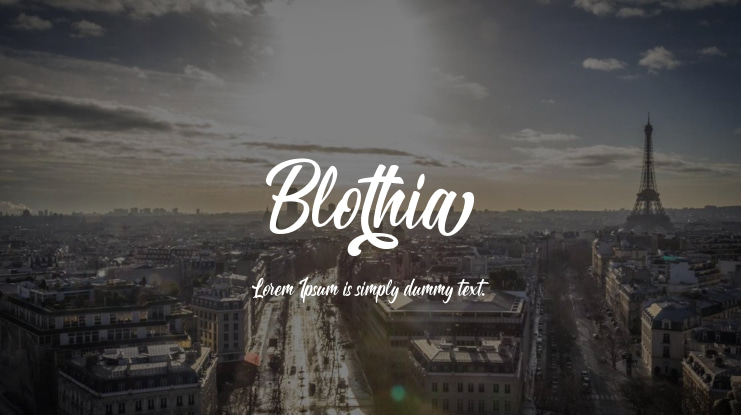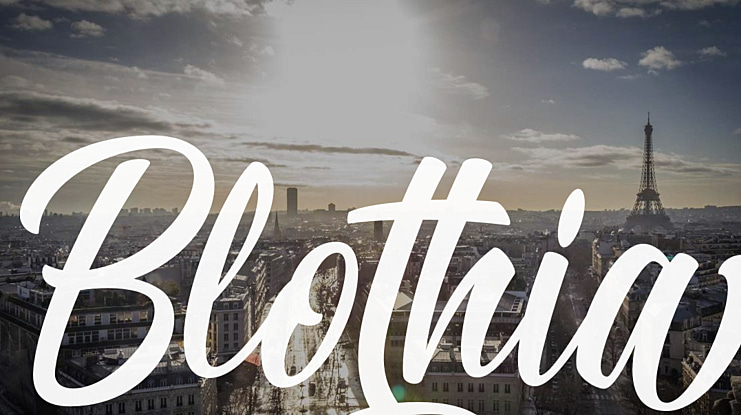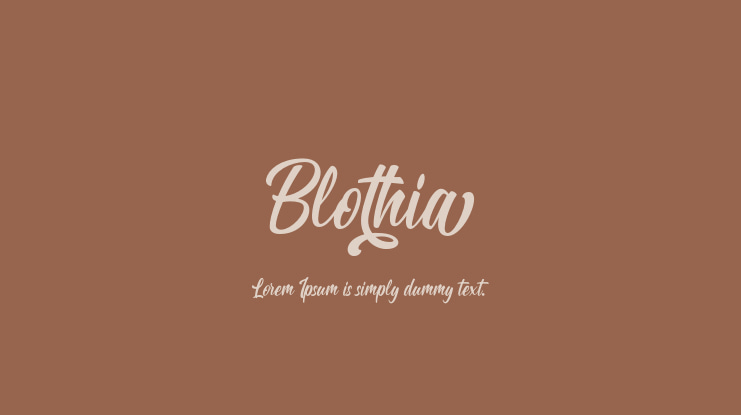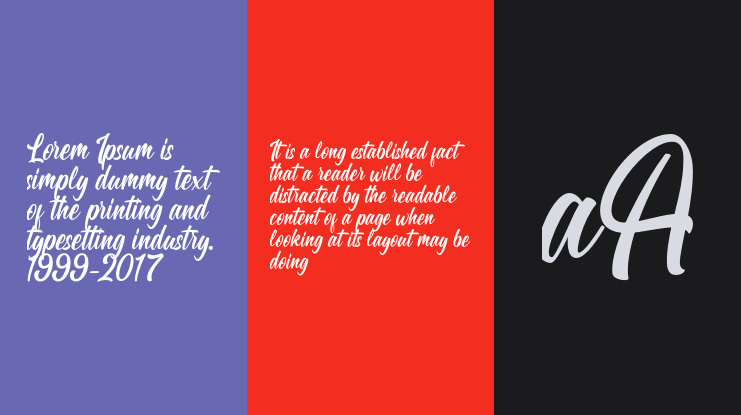
Blothia Font
Blothia is a brush script font that exudes a vibrant and lively vibe. Its versatility makes it suitable for a wide range of applications, including titles, signatures, logos, T-shirt designs, letterheads, signs, labels, newsletters, posters, badges, and any other design that calls for a distinctive and eye-catching font.